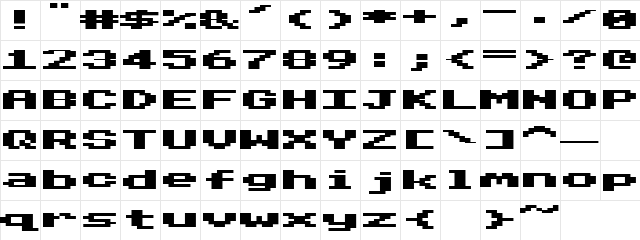
Frozen Bruza Regular
Design Context for Frozen Bruza Typeface
Frozen Bruza is a composed and adaptable typeface that performs quietly and consistently across a wide range of design contexts.
Pro Tip: Use Frozen Bruza in both headline and body roles to test its range before committing to a single application.